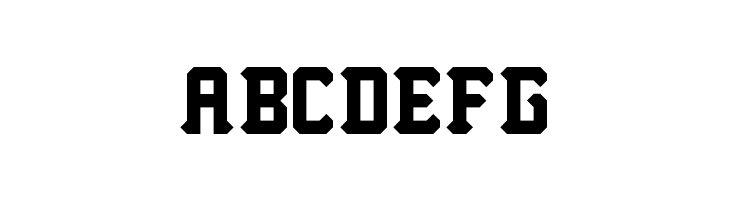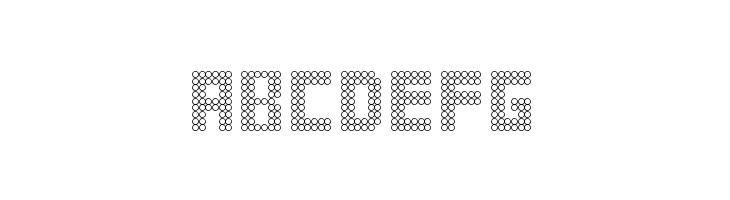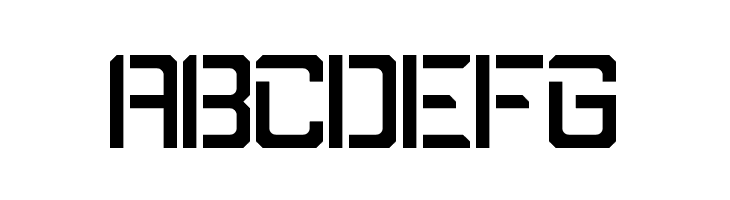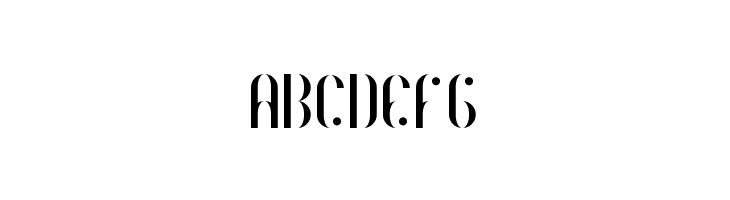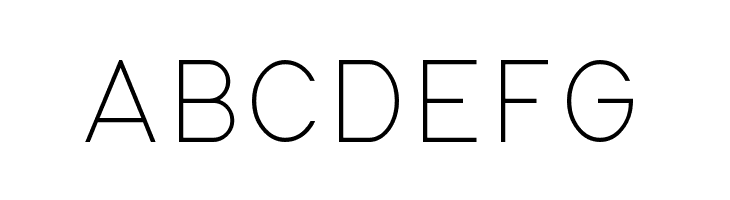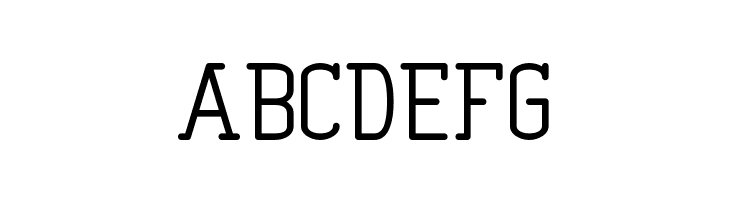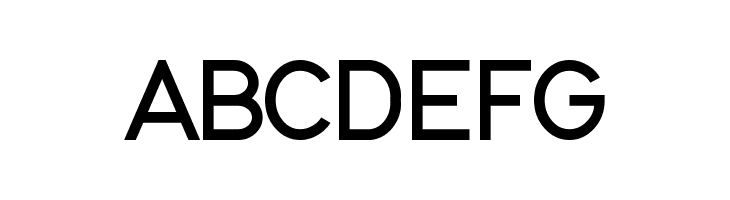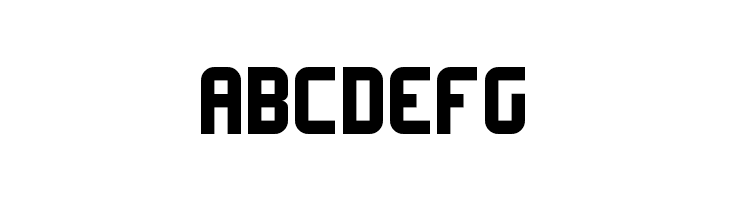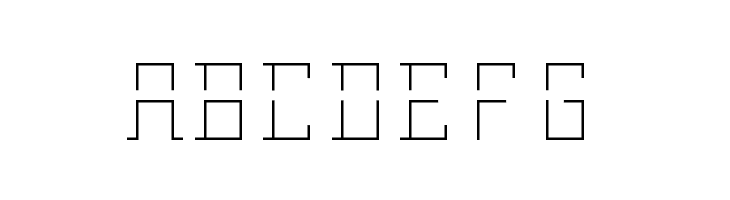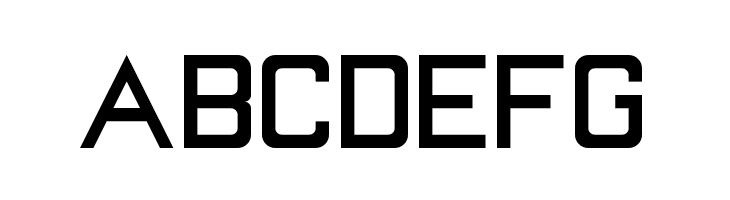
A bold, geometric font with an industrial, mechanical aesthetic.
A pixelated, grid-based font with a digital, futuristic aesthetic.
A bold, geometric stencil font with angular, blocky letterforms.
A bold, geometric font with sharp, angular edges and a vintage industrial style.
A dot matrix font with a retro digital display aesthetic.
A bold, geometric font with a modern, edgy style.
A bold, geometric font with a futuristic and structured design.
A modern, high-contrast decorative font with elegant and artistic elements.
A modern, geometric sans-serif font with a clean and minimalistic design.
A clean, modern sans-serif font with geometric influences and uniform structure.
A modern, clean sans-serif font with uniform strokes and excellent readability.
A bold, rounded font with a modern and playful style.
A geometric stencil font with a mechanical, industrial style.
A playful, dotted font with a whimsical and creative style.
A bold, pixelated font with a retro digital style.
A bold, geometric font with a futuristic and industrial aesthetic.
A pixelated, LCD-inspired font with a bold, geometric style.
A segmented, digital-style font with a futuristic aesthetic.
A dotted, pixelated font with a modern and digital aesthetic.
A pixelated, digital font inspired by LED displays.
A geometric, monospaced font with consistent stroke widths and a modern design.
A bold, structured font with geometric shapes and slab serif elements, offering a vintage yet modern appeal.
A bold, geometric font with a futuristic, stencil-like design.
A bold, geometric font with a modern, industrial aesthetic.
A modern, geometric sans-serif font with uniform strokes and clear characters.
A geometric, angular font with a futuristic and bold design.
A bold, geometric font with a modern, digital feel.
A bold, geometric font with a modern and balanced design.
A bold, geometric font with Art Deco influences, ideal for dramatic and vintage designs.
A bold, geometric font with a digital, pixelated style.
A decorative font with a star and stripe pattern, ideal for themed designs.